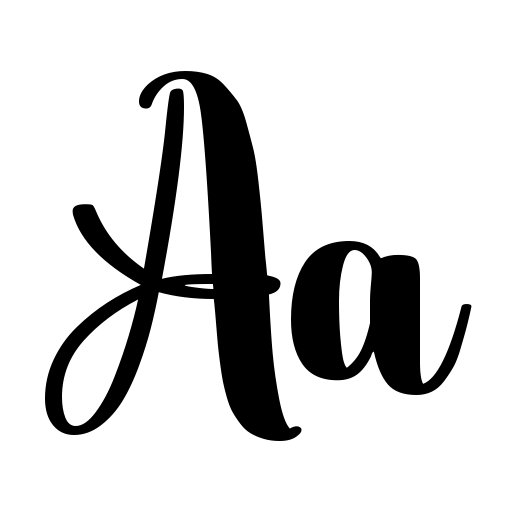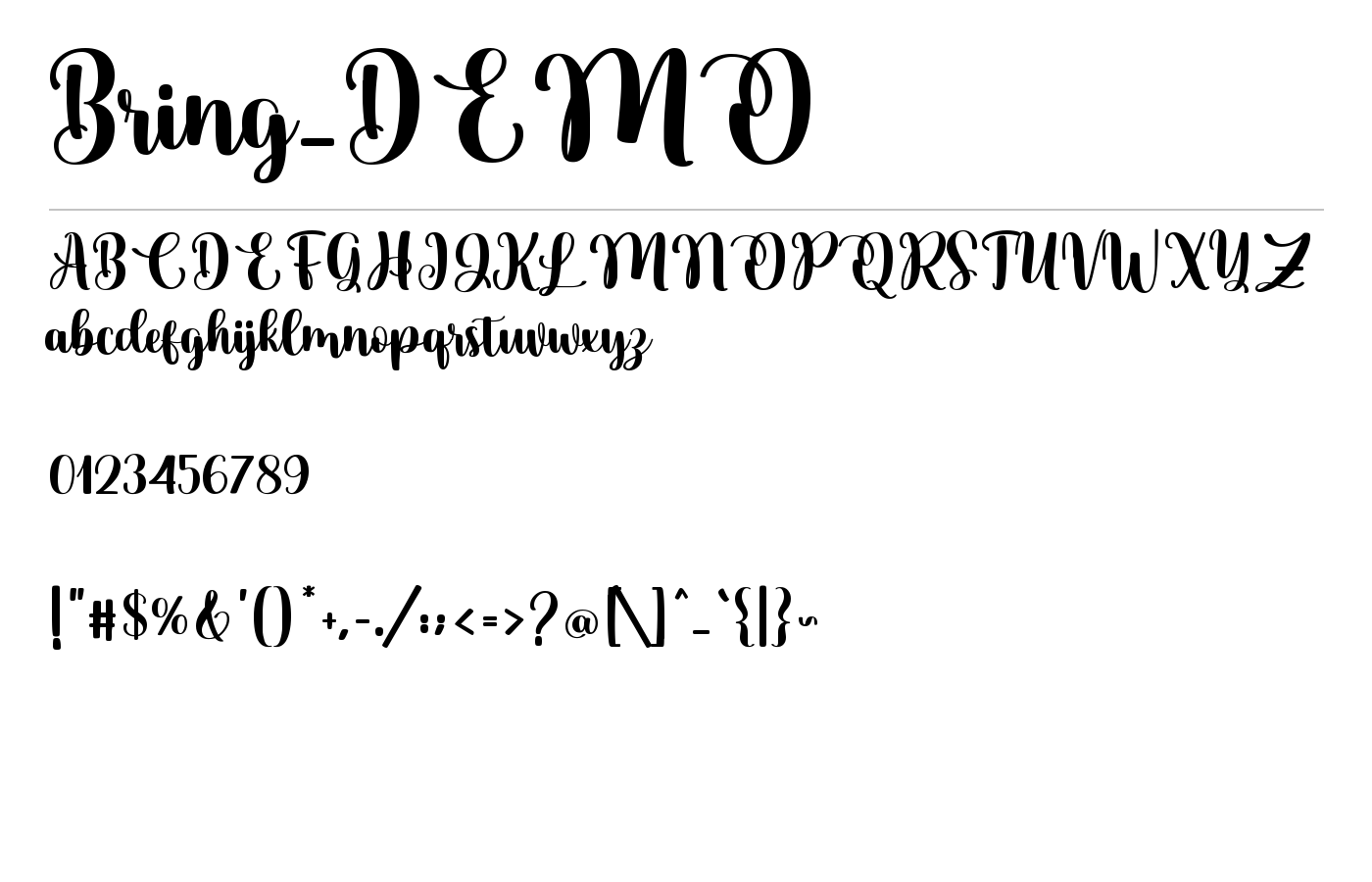
Bring_DEMO is a stylish script font with a lively and elegant flair, featuring bold, rounded strokes combined with fine, delicate details. Its high contrast and flowing letterforms make it perfect for creating eye-catching headlines, logos, and branding that convey a playful yet refined personality. This font works wonderfully in fashion, lifestyle, and creative projects where a touch of charm and sophistication is desired.
Bring_DEMO Font